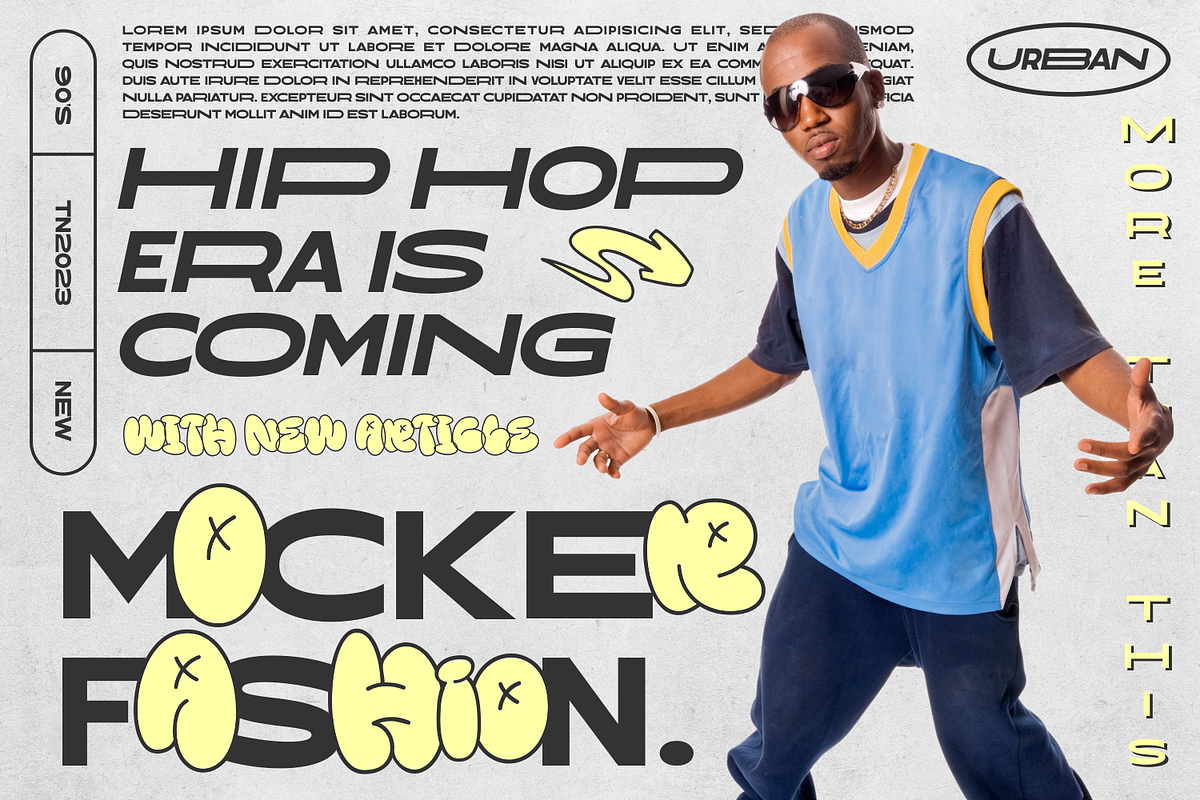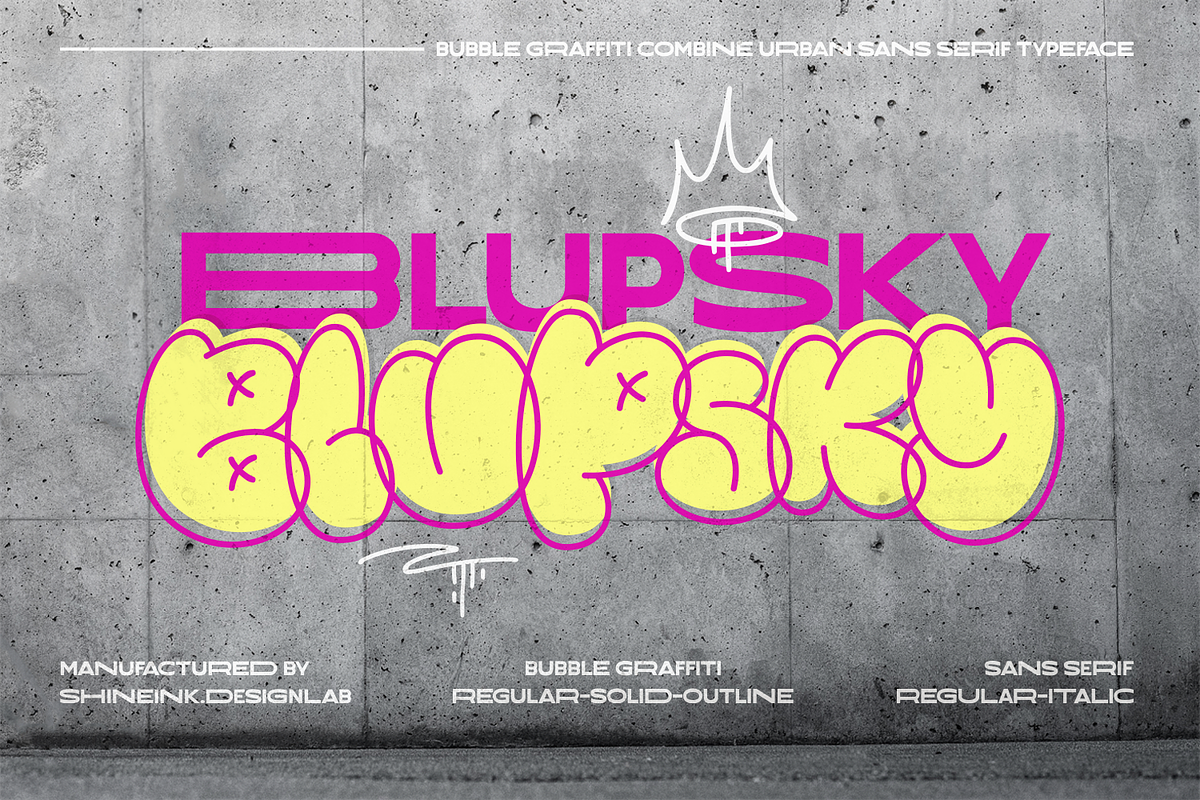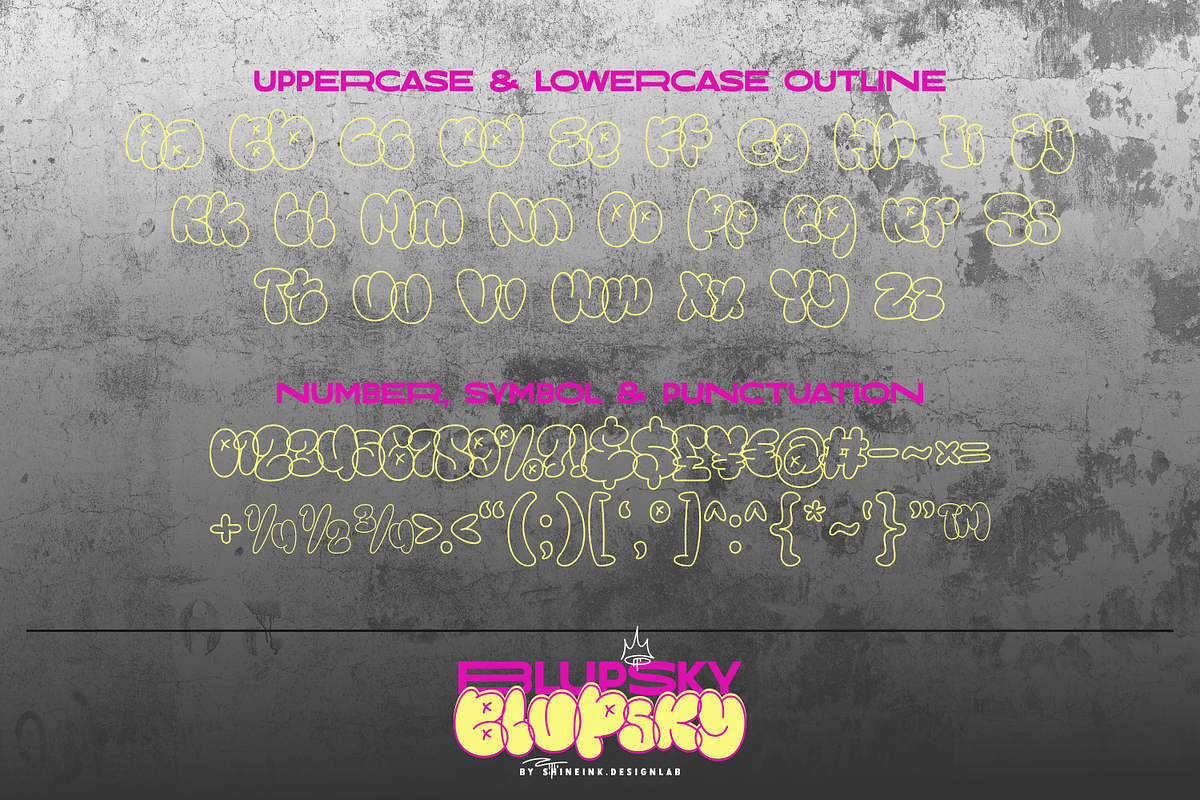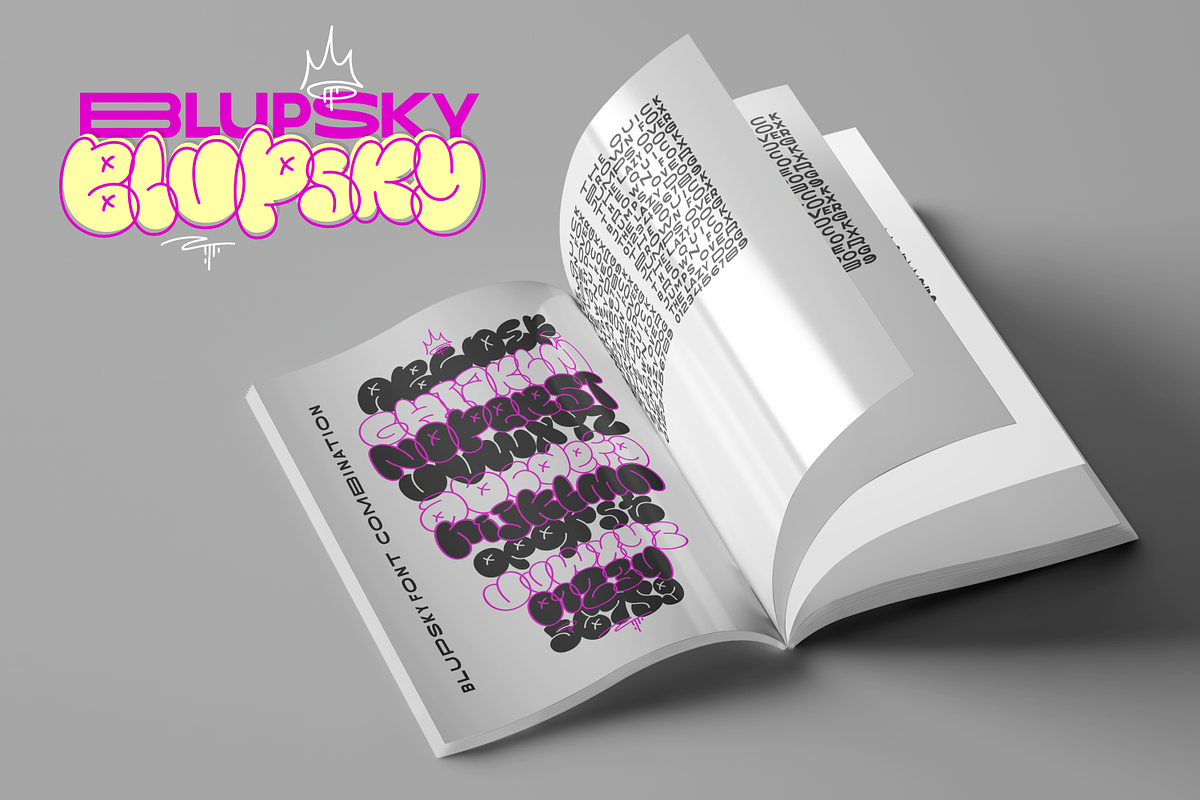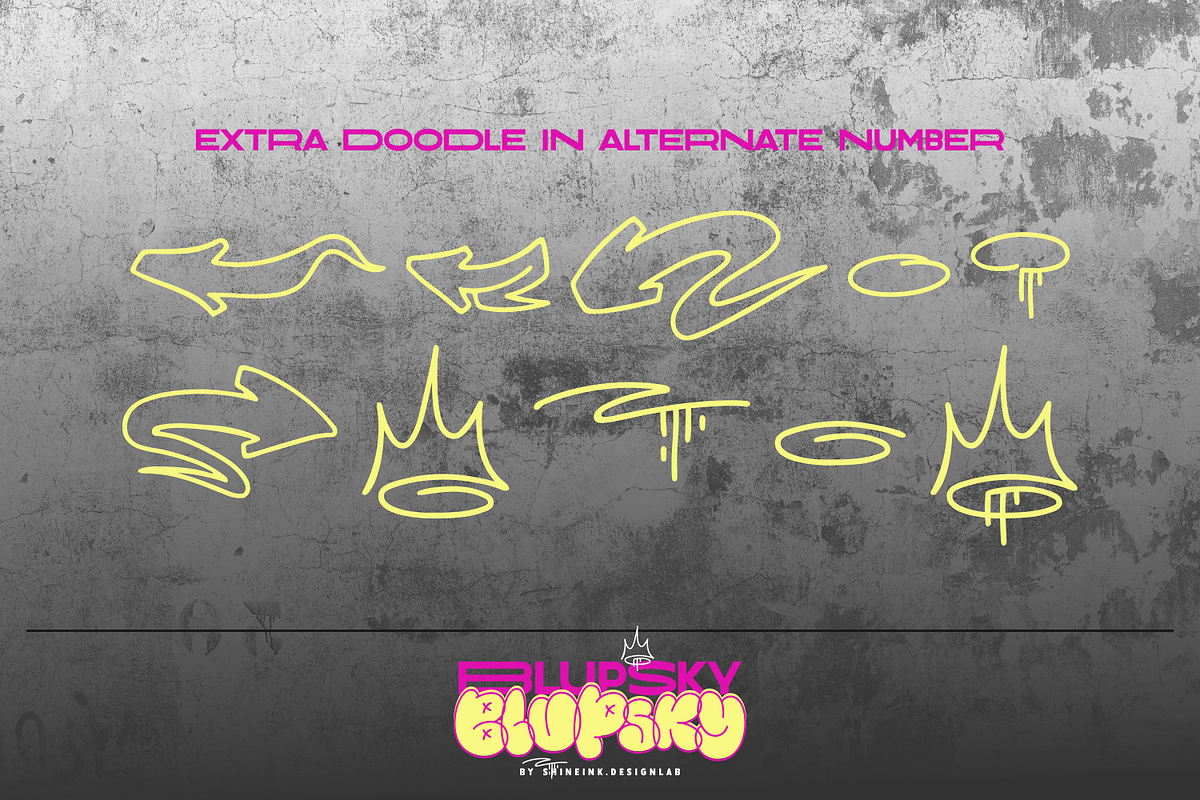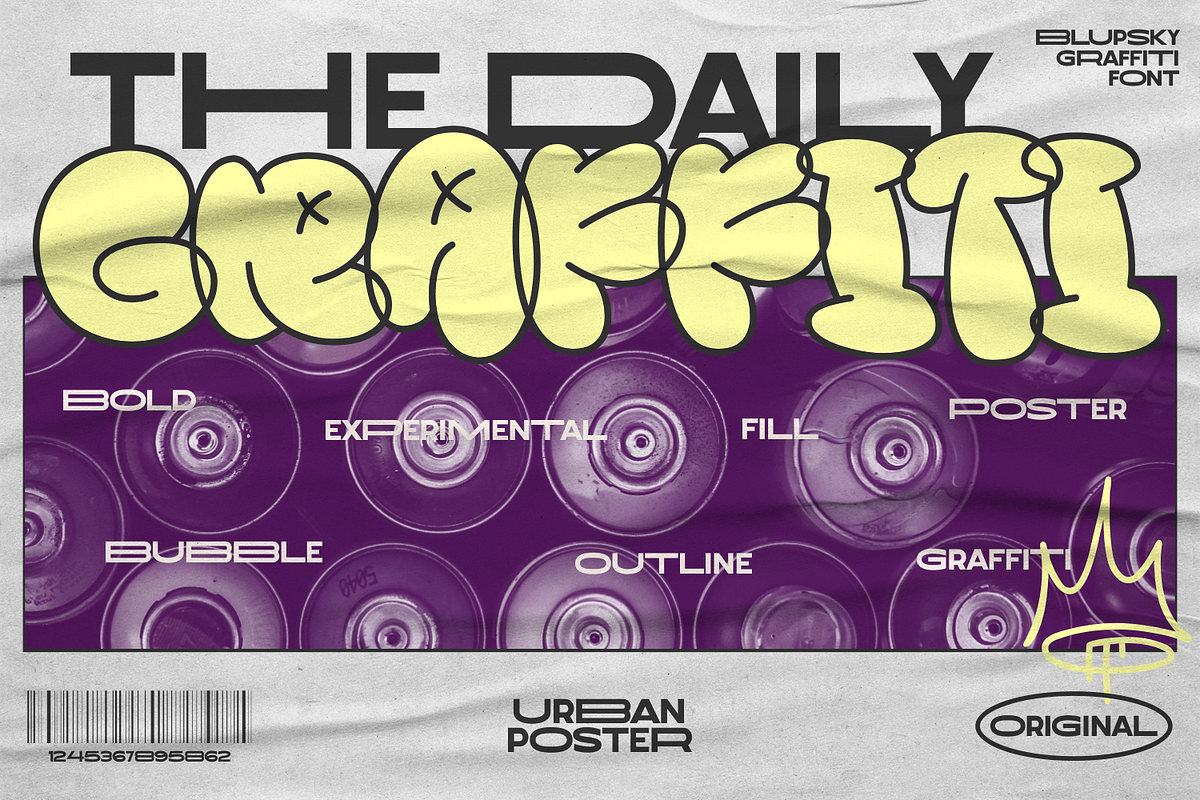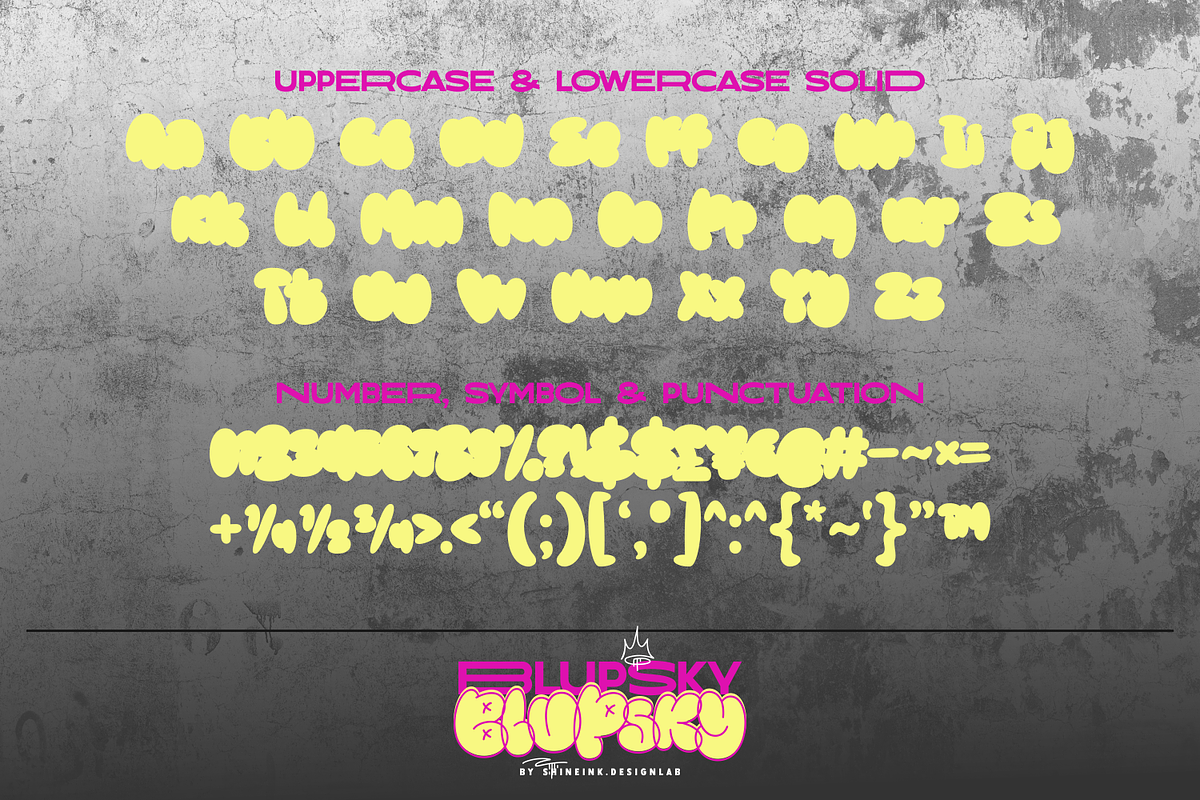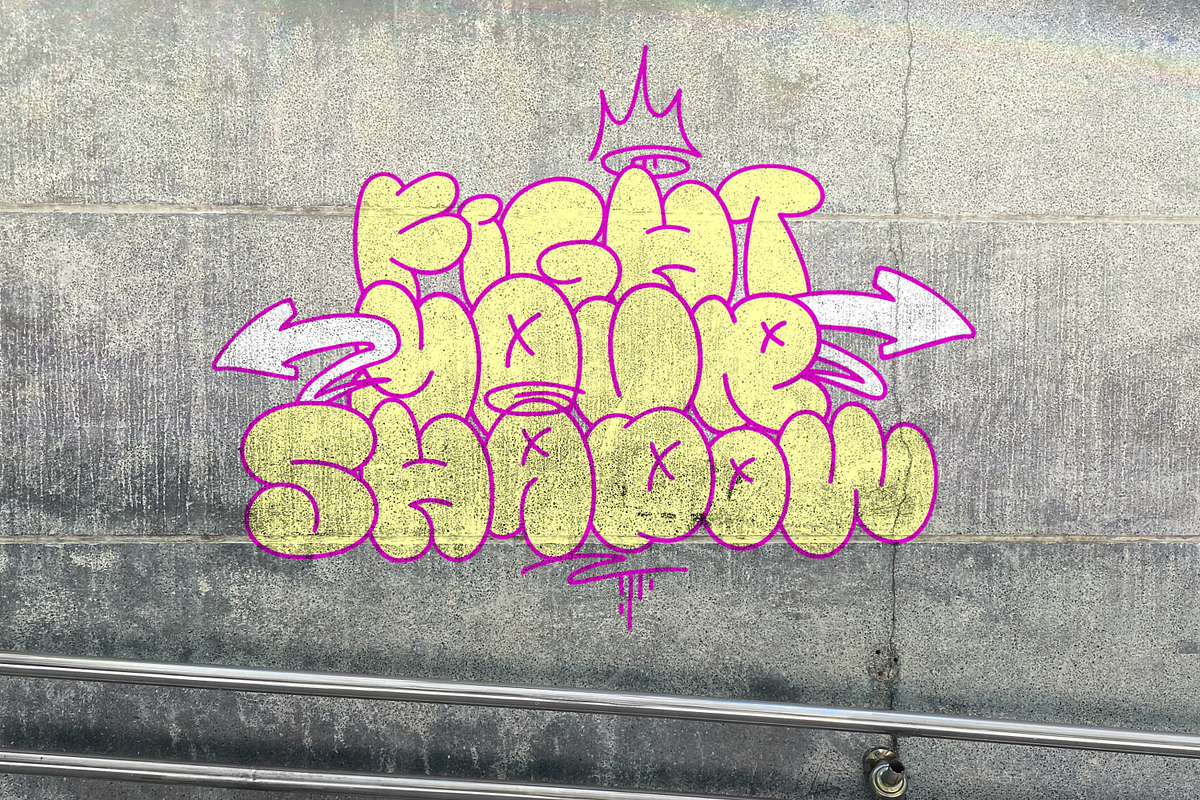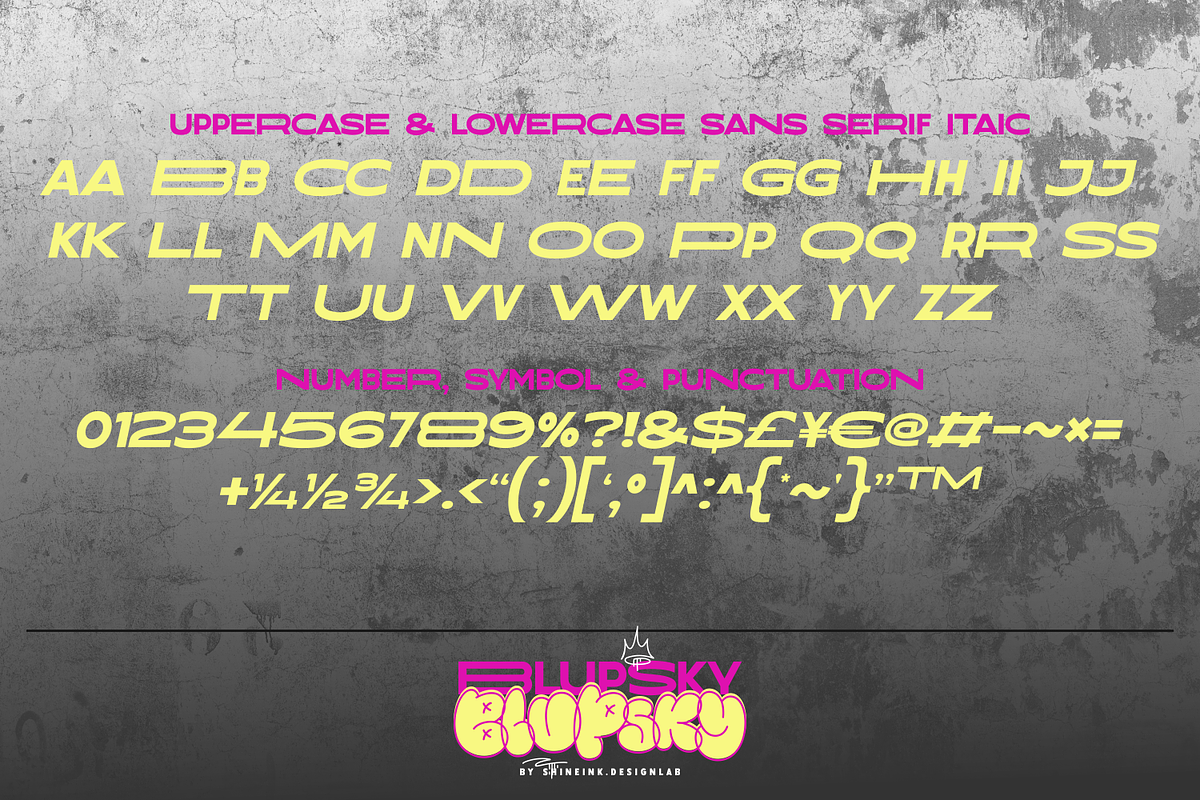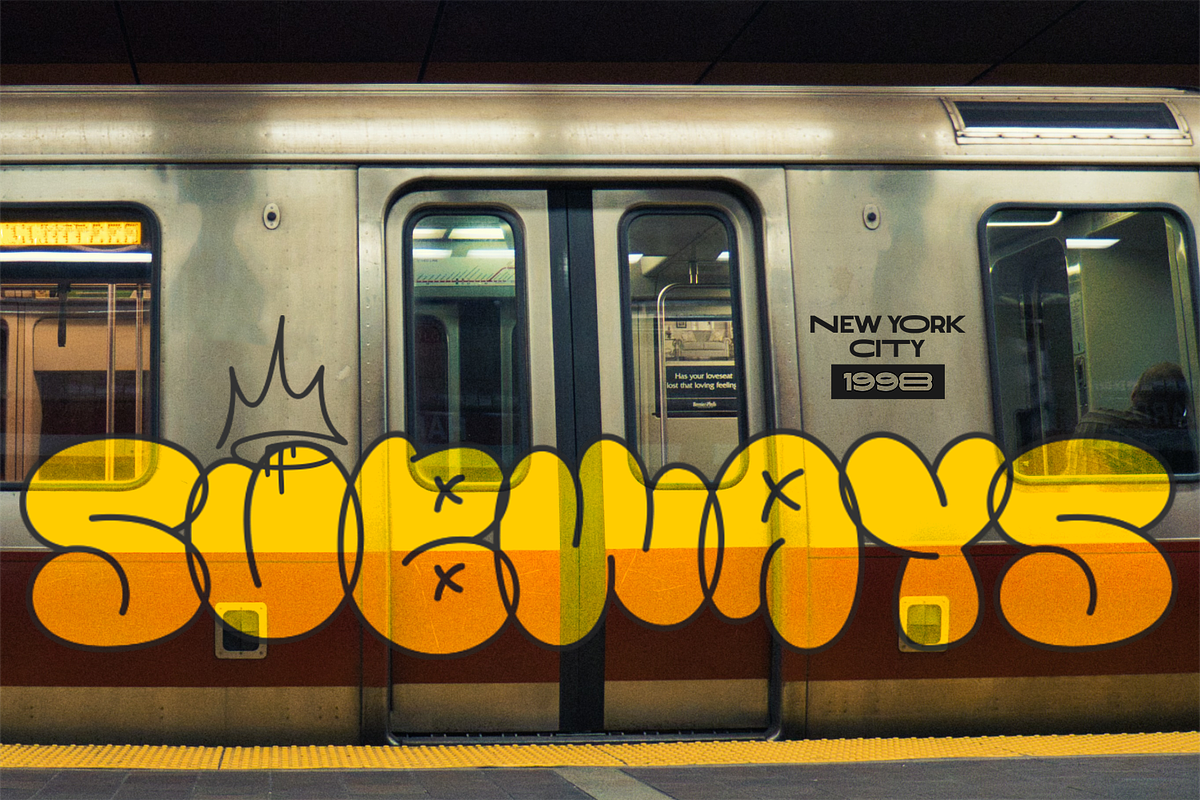
Blupsky
I'm present to you, a bubble graffiti combine sans serif typeface, called Blupsky!
Blupsky a dynamic font family that fuses the vibrant essence of bubble lettering, graffiti, urban street art, and skateboarding culture. This font collection seamlessly combines a sans-serif typeface with playful and eye-catching design elements, resulting in an effortlessly cool and highly legible combination.
Blupsky, draws inspiration from the intricate letterforms found in graffiti art. Its rounded edges and exaggerated curves give each character a unique and captivating appearance, mimicking the fluidity and energy of spray-painted tags on city walls. The bold weight ensures excellent visibility, making it ideal for headlines, titles, and attention-grabbing text.
For enhanced readability, the accompanying sans-serif font, Street Sans, perfectly complements Bubble Graffiti Urban. Street Sans offers a clean and minimalist design that balances the urban aesthetic with simplicity. Its precise and geometric shapes make it easy to read, even at smaller sizes, while maintaining a sense of urban coolness.
By combining Bubble Graffiti Urban and Street Sans, designers can create visually compelling compositions that merge the expressive nature of graffiti with the legibility required for clear communication. This font duo is perfect for various design projects, including logos, posters, album covers, apparel, and branding materials that aim to capture the energy and edginess of urban street culture.
Embrace the spirit of urban art and skateboarding with Blupsky and Sans Serif typeface, a powerful and visually striking font combination that offers both readability and a touch of street-inspired style.
- Lowercase and Uppercase
- Stylistic Doodles in number